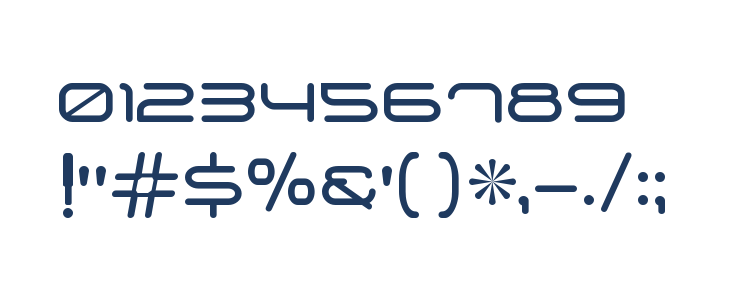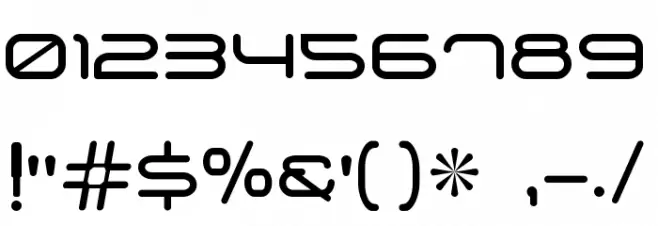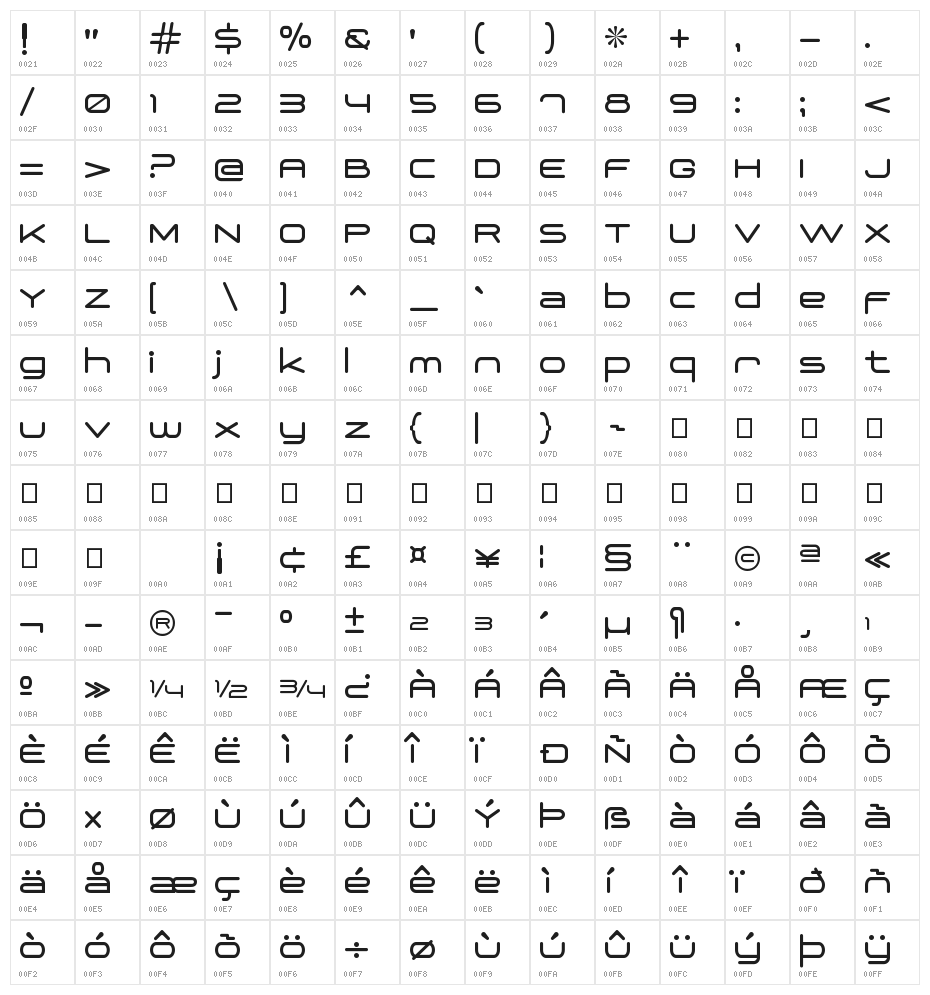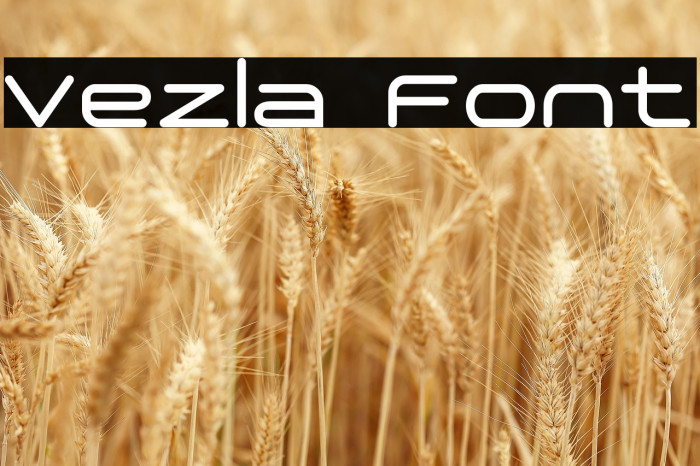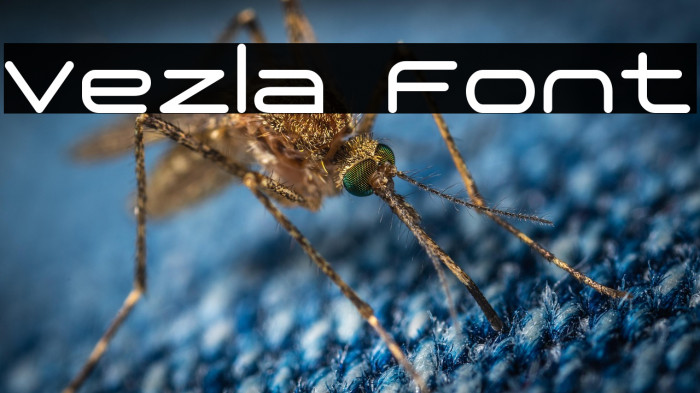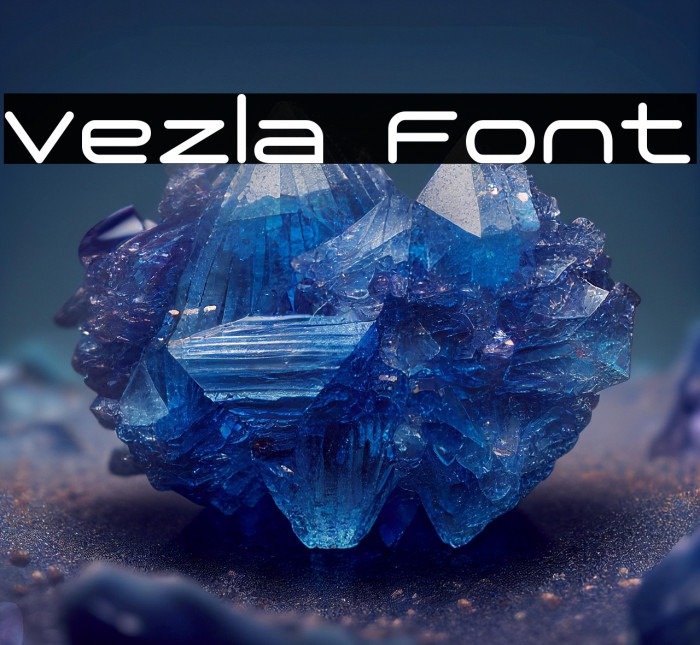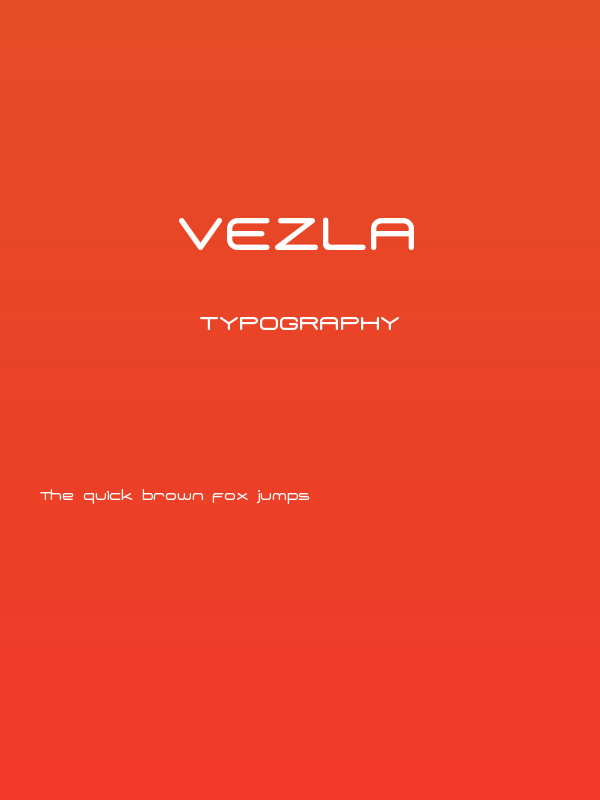
Vezla Font
Vezla Description
This font features a sleek, modern design with rounded edges and a geometric structure. The characters are uniform in width, giving it a monospaced appearance, yet they maintain a unique style with slightly elongated forms. The uppercase letters are bold and assertive, while the lowercase letters retain a softer, more approachable feel. The numerals are consistent with the overall design, providing clarity and readability. Special characters are well-integrated, maintaining the font's cohesive look. This font is ideal for projects that require a contemporary and futuristic aesthetic.